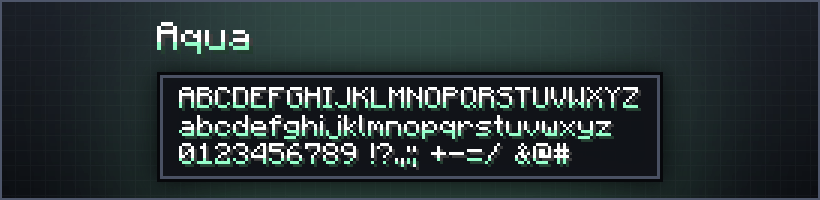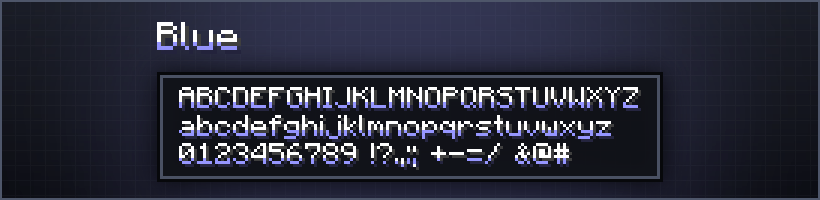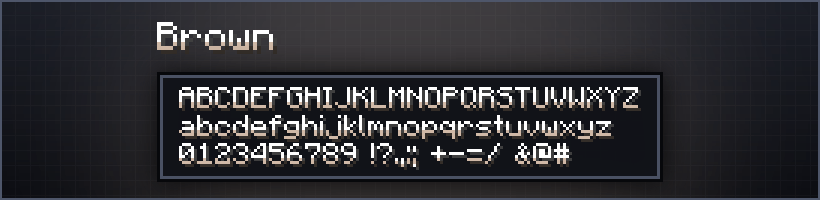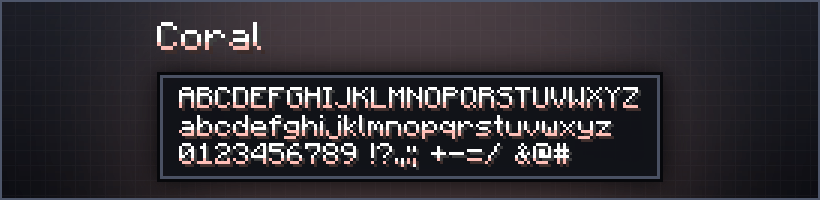
Shaded Fonts
Shaded Fonts adds a soft coloured shade to Minecraft's text. Same crisp pixel font, now with a tint. Activate the pack, click it again and pick your colour from the subpack list - Blue, Gold, Crimson, or Rainbow for a different hue on every letter.
Minecraft's default text is flat white. Shaded Fonts gives every character a soft coloured shade along its lower edge the same crisp pixel font you already know, just with a tint that catches the eye. Item names, chat, signs, tooltips, the pause menu: all of it picks up the colour you choose.
It is a pure text pack. Nothing else in your world is touched.
Available colours
Blue, Sky, Cyan, Aqua, Teal, Navy, Indigo, Purple, Magenta, Pink, Coral, Crimson, Red, Orange, Gold, Yellow, Olive, Lime, Green, Brown, Gray and Dark.
There is also Rainbow, which gives each letter its own hue, so a single word runs through the whole spectrum as you type it.